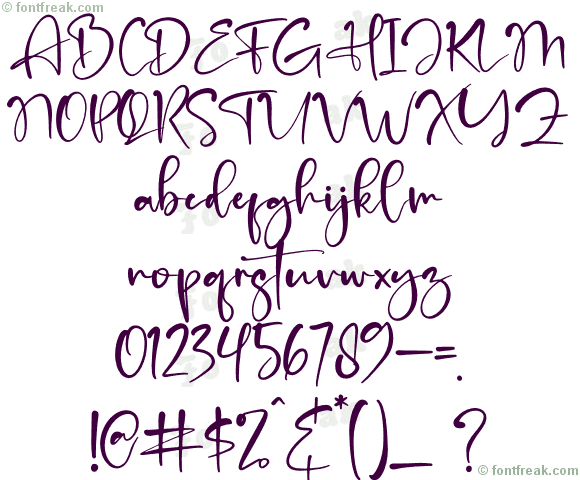
Amsterdam Bright
About Amsterdam Bright
Amsterdam Bright, designed by Perspectype Studio in 2021, is a captivating script font that exudes elegance and charm. This font features fluid, sweeping strokes with a balanced stroke weight that maintains legibility while offering a distinct personality. The contrast between thick and thin lines adds a dynamic quality, making it visually engaging. The spacing is thoughtfully designed to ensure that each character flows seamlessly into the next, enhancing its handwritten appeal. Decorative elements, such as gentle curves and playful swashes, bring a touch of whimsy, making the Amsterdam Bright font an excellent choice for a variety of creative projects.
This versatile font is particularly well-suited for wedding invitations, where its sophisticated yet approachable style can set the tone for a romantic event. Additionally, it shines in branding materials for small businesses, providing a personal touch to logos and packaging. Restaurant menus can benefit from its inviting appearance, drawing customers in with a friendly vibe. Furthermore, Amsterdam Bright is perfect for social media graphics, allowing content creators to craft eye-catching posts that stand out in crowded feeds.
The target audience for this font includes graphic designers looking to add a unique script option to their toolbox, small business owners aiming to establish a memorable brand identity, and content creators seeking to enhance their visual storytelling.
What sets Amsterdam Bright apart is its ability to blend contemporary design elements with a classic handwritten style, making it both trendy and timeless. Its freeware license allows for widespread use, inviting creativity across various platforms. Whether you’re crafting a heartfelt invitation or designing an engaging social media post, the Amsterdam Bright font free download opens up a world of possibilities for your projects.